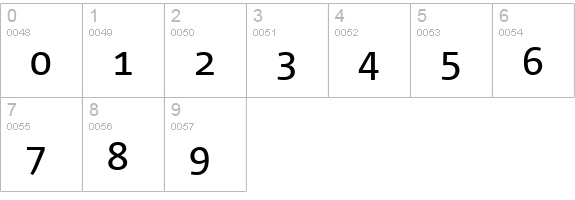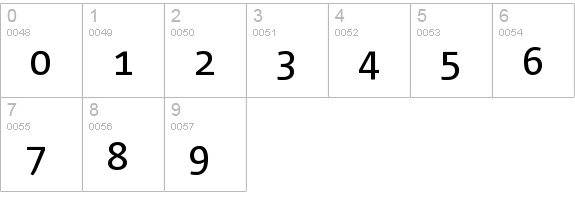
CorpidOffice Font Details
CorpidOffice is a versatile and modern sans-serif font that exudes professionalism and clarity. With its clean lines and balanced proportions, this typeface is perfect for a wide range of design projects, from corporate branding to editorial layouts. The sleek and sophisticated design of CorpidOffice makes it a popular choice for businesses and individuals looking to make a bold statement with their typography. Best of all, CorpidOffice is available for free download at FontsMarket.com. This means that you can access this high-quality font without any cost, making it a valuable addition to your font library. Whether you're working on a print project or a digital design, CorpidOffice is sure to elevate your work with its timeless style and readability. Download CorpidOffice today and see the impact it can make on your next project.